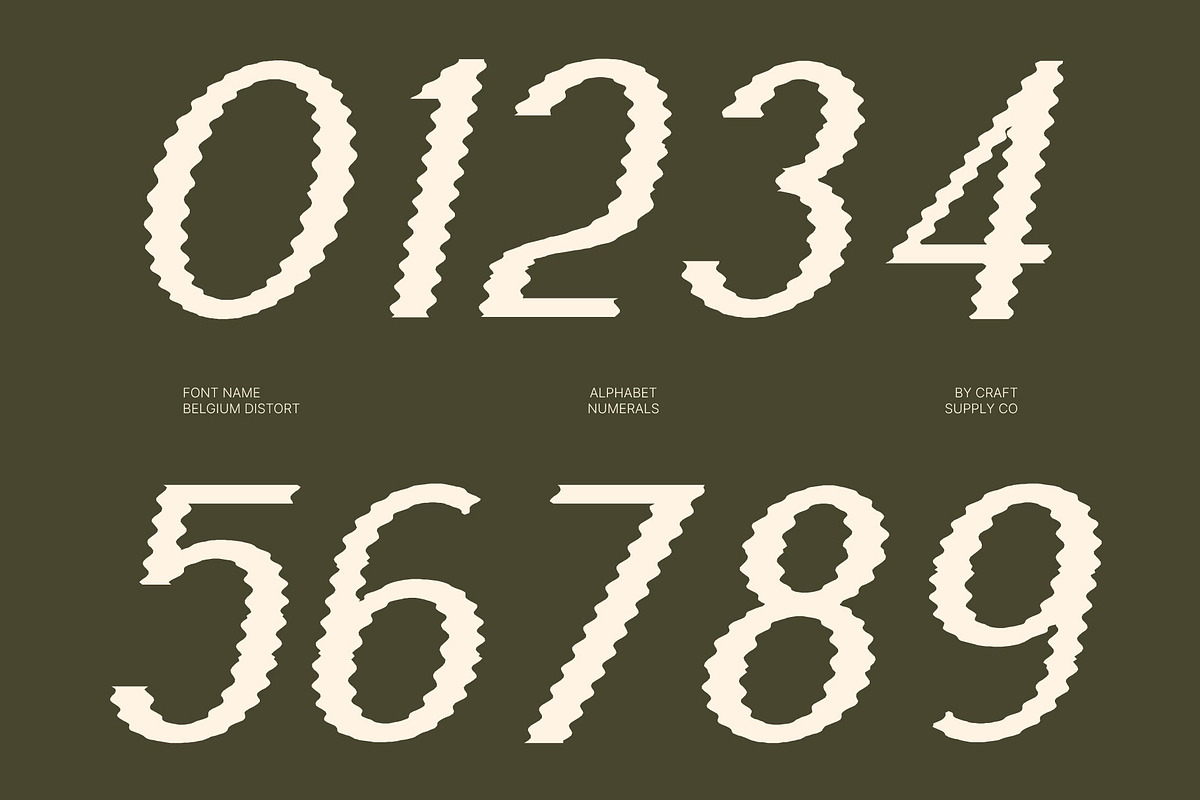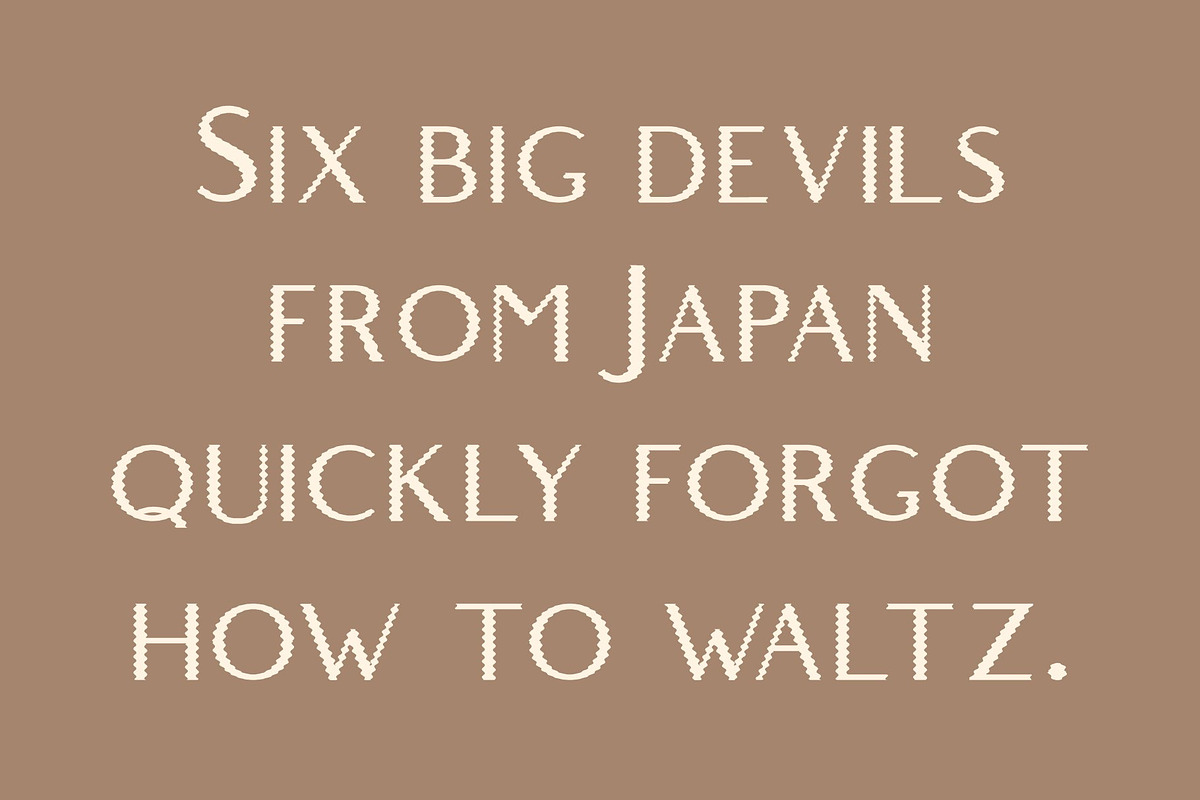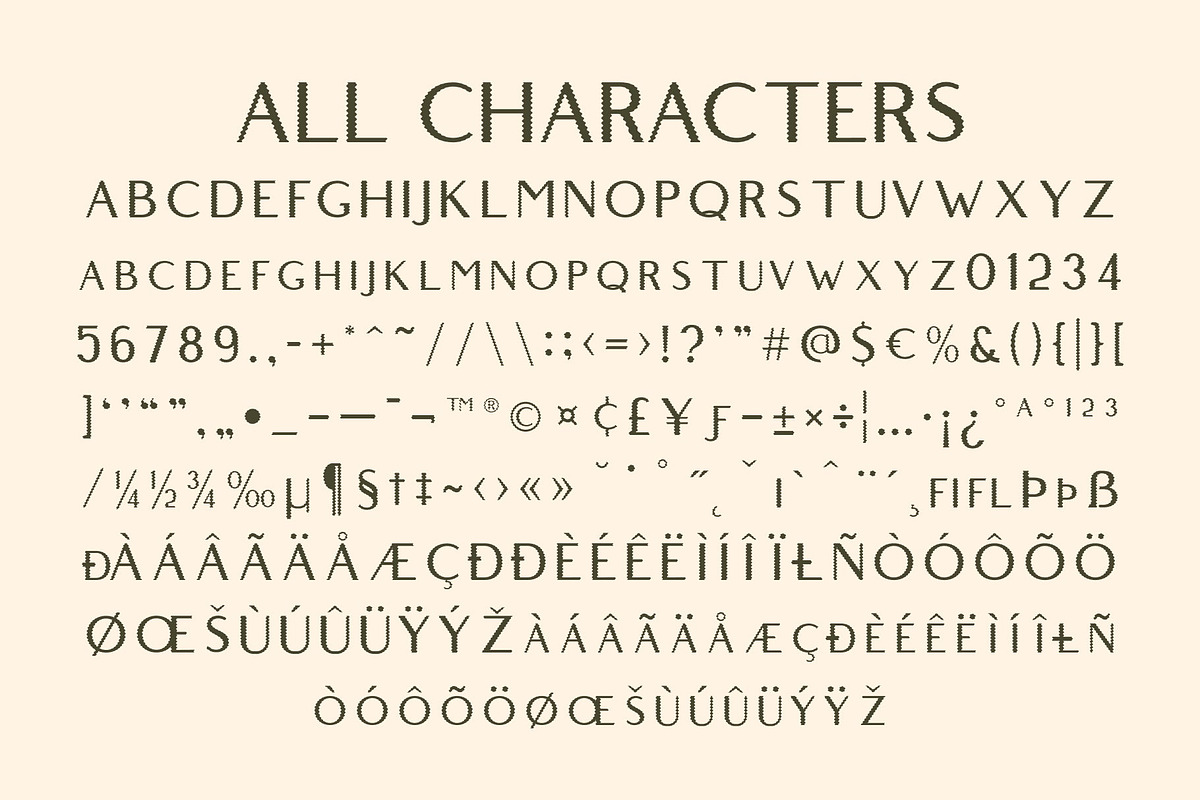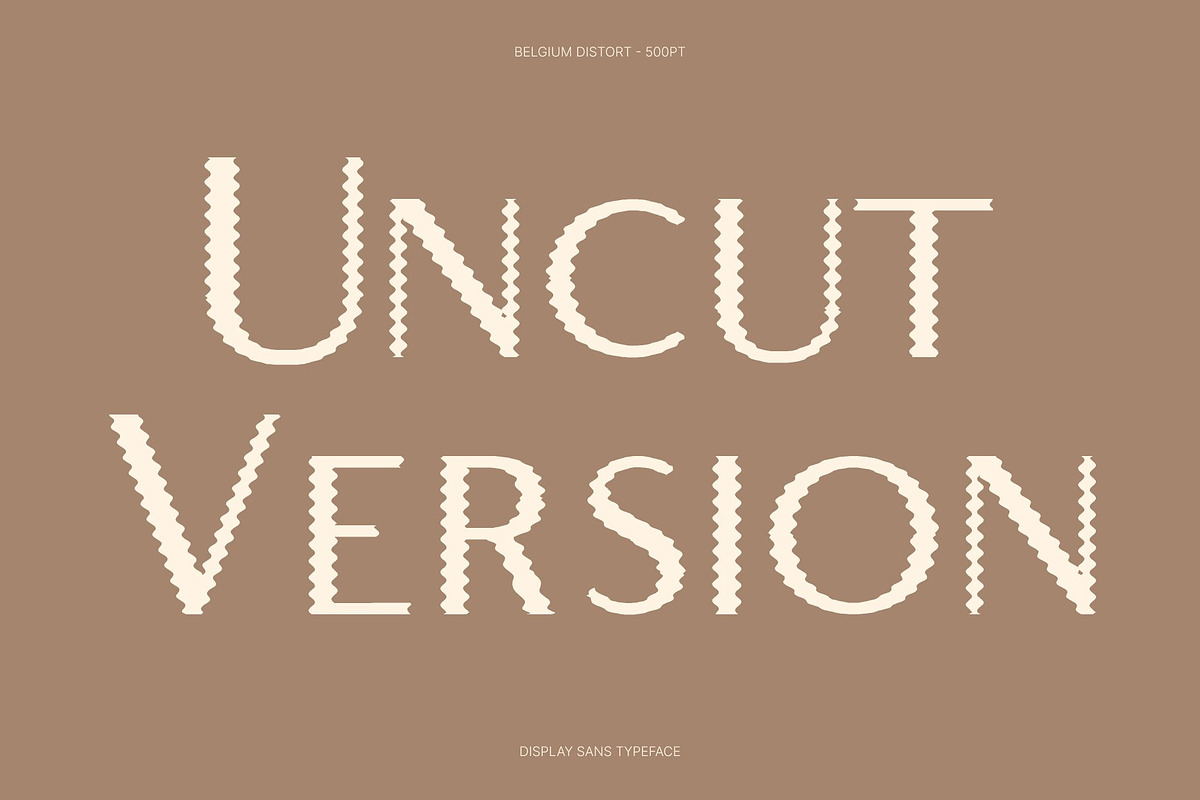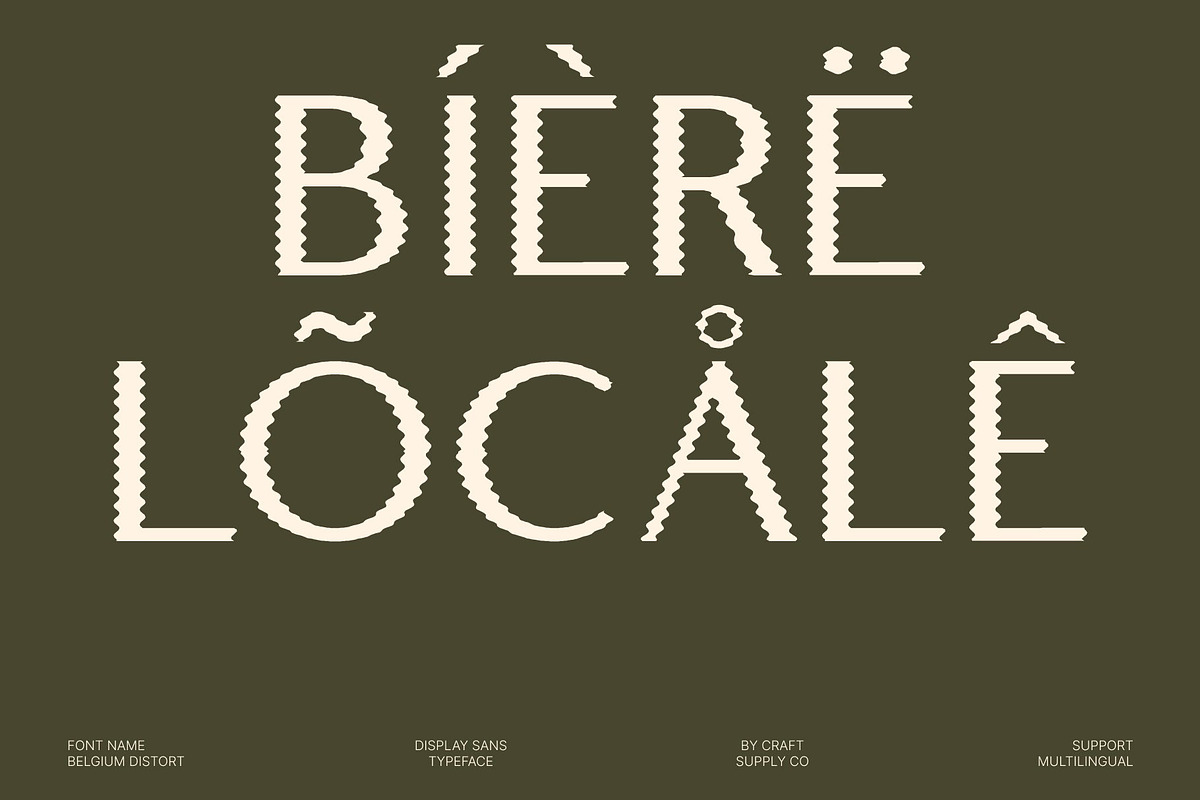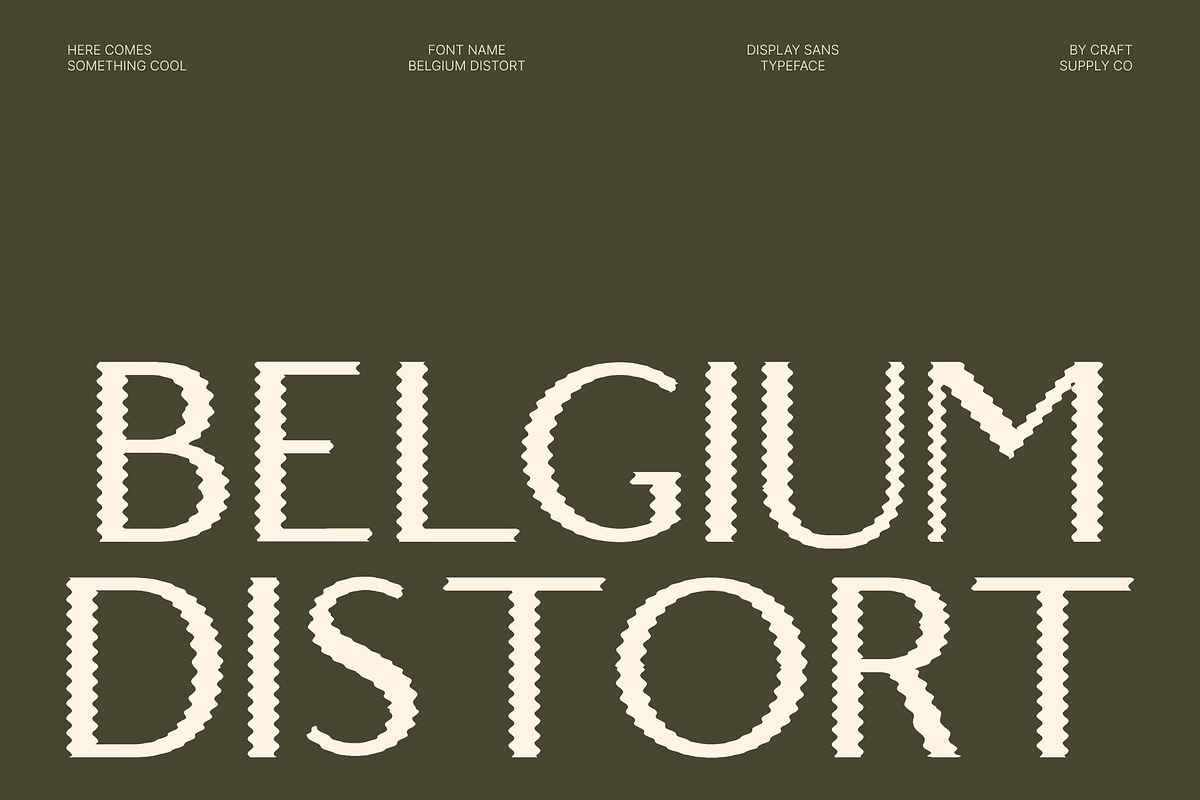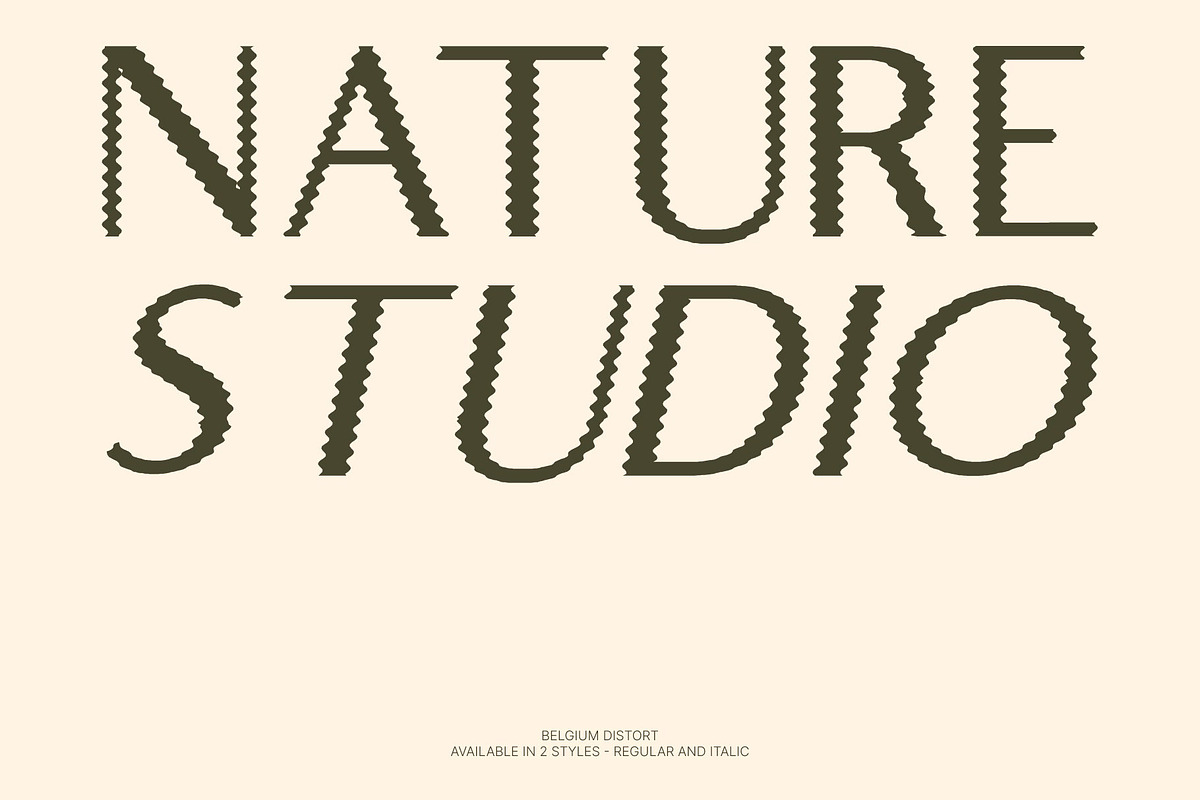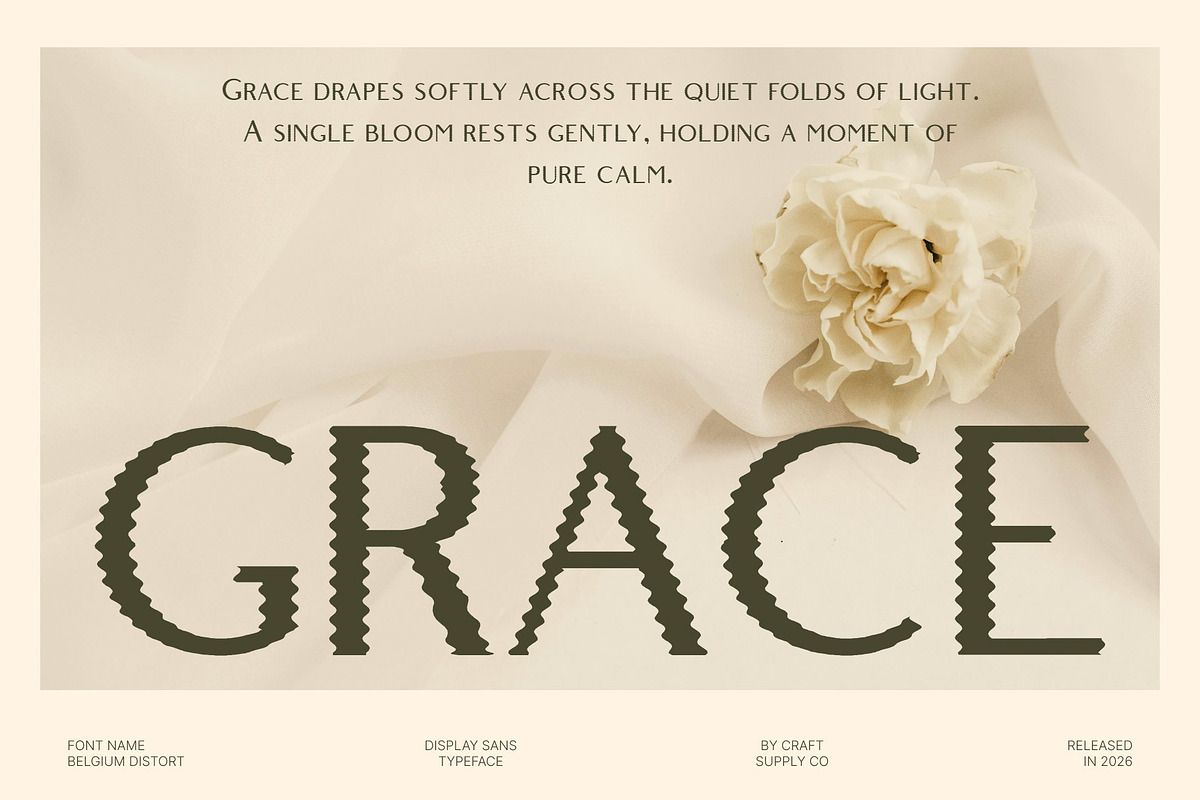
Belgium Distort
Belgium Distort – Modern Sans Serif Display Font: Where Contemporary Elegance Meets Fluid Distortion
Clean Contemporary Forms with Refined Modern Appeal This is a modern sans serif display font designed with sleek contemporary aesthetics and refined visual balance. Its clean structure and stylish proportions create a sophisticated appearance that feels modern, elegant, and highly professional. Every character carries a polished personality, making the font perfect for premium branding and visually refined creative projects.
Distort Effect with Organic Flowing Motion This font features fluid organic contours along the letter edges that create a subtle melting effect. This expressive detailing introduces graceful movement, artistic softness, and visual depth while preserving the font’s clean contemporary structure. The result is a dynamic and immersive appearance that feels modern, elegant, and creatively expressive.
Modern Sophistication with Artistic Character This font delivers a typographic identity that feels luxurious, stylish, and visually captivating. Its balance between clean refinement and organic movement creates a versatile atmosphere ideal for professional and artistic design applications.
Perfect for Luxury Branding, Fashion, and Presentations This font suitable for luxurious branding, wedding invitations, nature studio visuals, beauty and fashion campaigns, presentations, editorial layouts, elegant packaging, and professional promotional materials. Its fluid distorted forms make it ideal for logos, headlines, signage, social graphics, and visual identities that seek sophistication with a modern artistic edge.
Belgium Distort Regular
Belgium Distort Italic